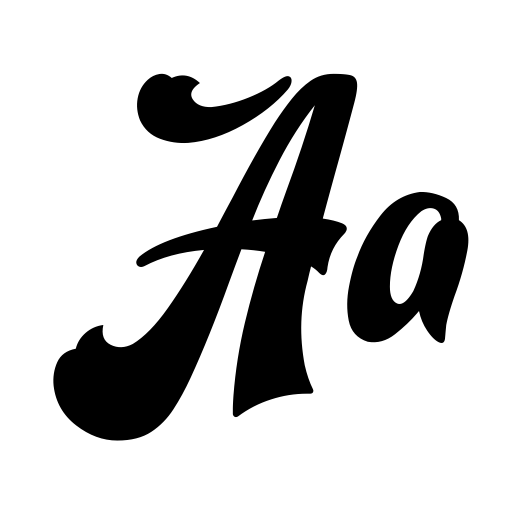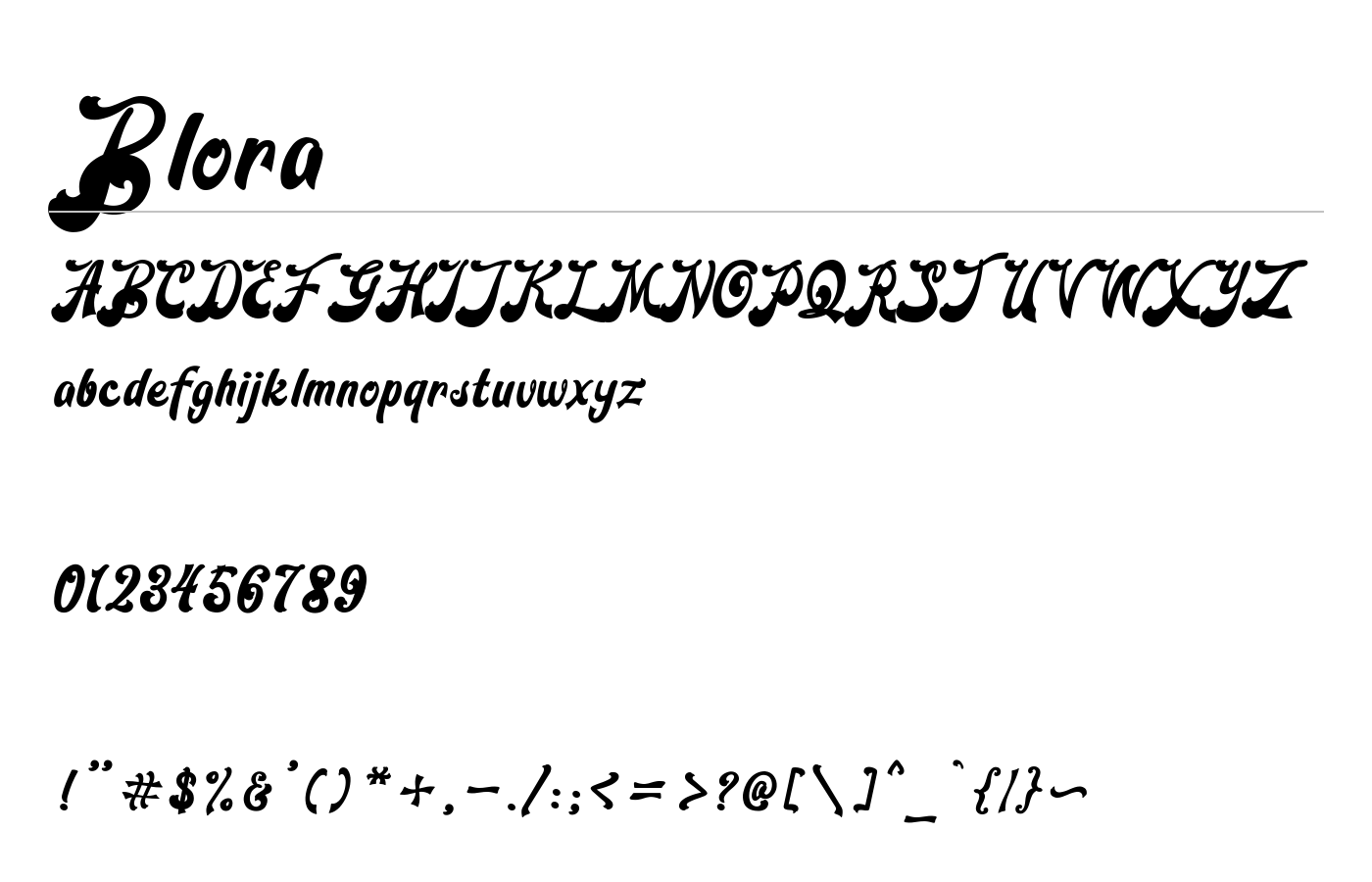
Blora is a bold, decorative script font with a playful yet elegant flair, featuring thick, rounded strokes and whimsical, curved terminals that give it a hand-lettered feel. Its distinct uppercase letters stand out with dramatic flourishes, while the lowercase maintains readability with softer, flowing shapes, making it ideal for creative branding, eye-catching headlines, and stylish packaging. This font works best where personality and charm are key, adding a vintage-inspired yet lively touch to any design.
Blora Font
About Blora Font